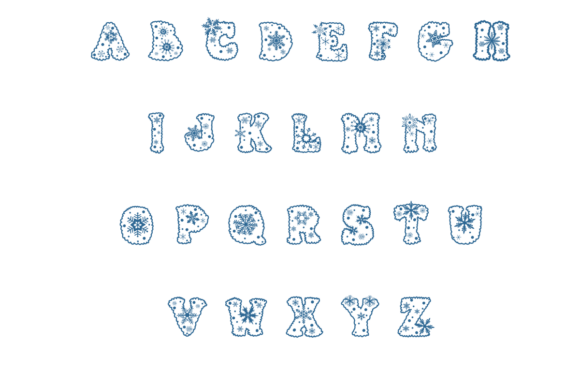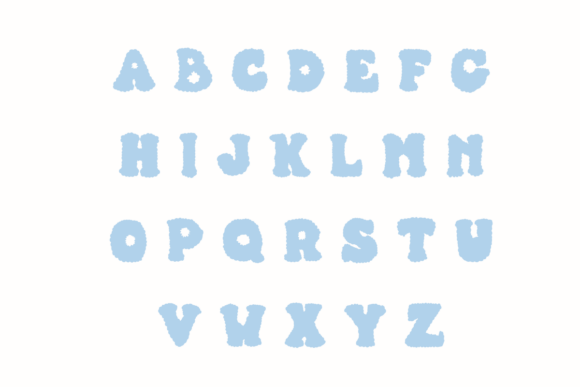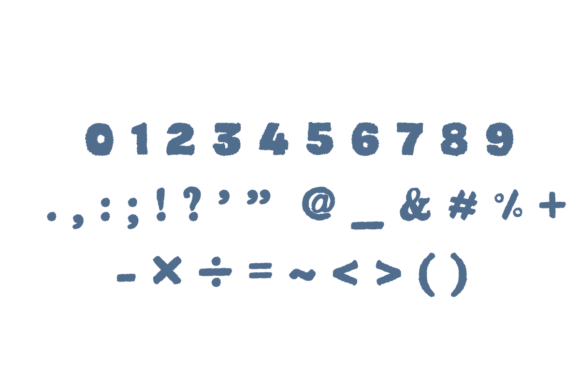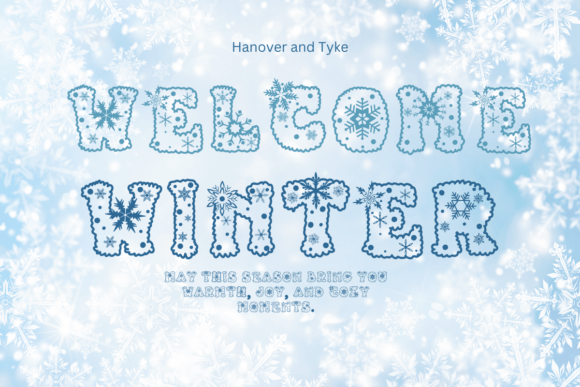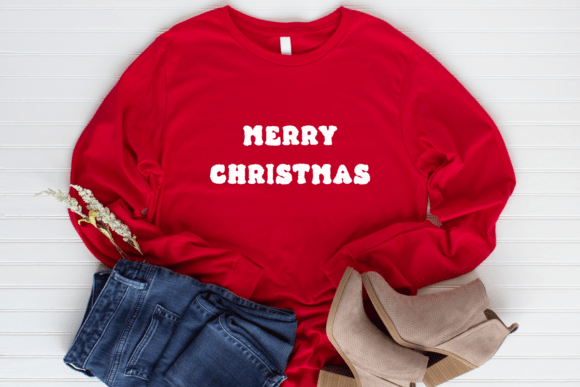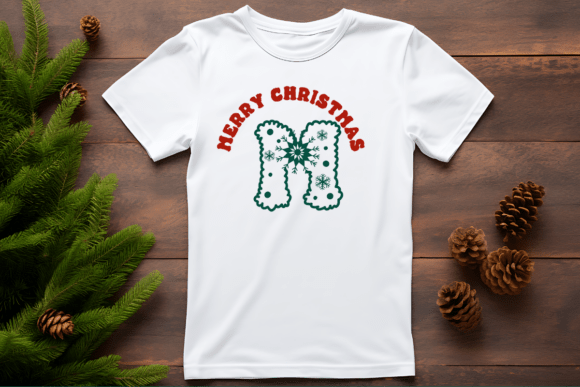
Winter Wonder on Paper: The Magic of Christmas Snowflake Font
There’s something special about the first snowfall of the season, isn’t there? The way the flakes gently fall, blanketing the world in a layer of white magic. It’s a moment that sparks creativity and inspires us to get crafty. For graphic designers, this time of year is a chance to unleash their inner child and bring the joy of winter to their work.
That’s where the Christmas Snowflake Font comes in – a playful and festive decorative font filled with snowflake patterns inside each letter. Perfect for holiday-themed projects, this font adds a touch of winter wonder to Christmas cards, party invitations, wrapping paper designs, and seasonal marketing materials. With the Christmas Snowflake Font, designers can bring the magic of the season to life in a way that’s both unique and memorable.
Key Features of Christmas Snowflake Font
- Unique Characteristics: The Christmas Snowflake Font features intricate, hand-drawn snowflakes and festive holiday elements, adding a touch of elegance and whimsy to designs.
- Font Style: The font is available in both regular and bold styles, allowing designers to create a range of visual effects and emphasis.
Christmas Snowflake Font Review
Overall, I think the Christmas Snowflake Font is a lovely, festive addition to any holiday design project. ✨ The font is playful and whimsical, perfect for creating a magical winter wonderland atmosphere.
- The font’s intricate, snowflake-inspired design is a standout feature. ✨
- It’s great for titles, headings, and short phrases, adding a touch of holiday cheer to your design.
- The font is highly customizable, allowing you to adjust size, color, and other settings to fit your project’s needs.
- ⚠️ The font may be a bit too ornate for long blocks of text, making it difficult to read.
- ⚠️ Some users may find the font’s delicate design too fragile or prone to breaking apart when scaled up.
While the Christmas Snowflake Font has some limitations, I think it’s a great choice for holiday designs that need a touch of magic. With careful use, it can add a beautiful, festive feel to your project. Just be mindful of its limitations and use it sparingly, especially in large blocks of text.